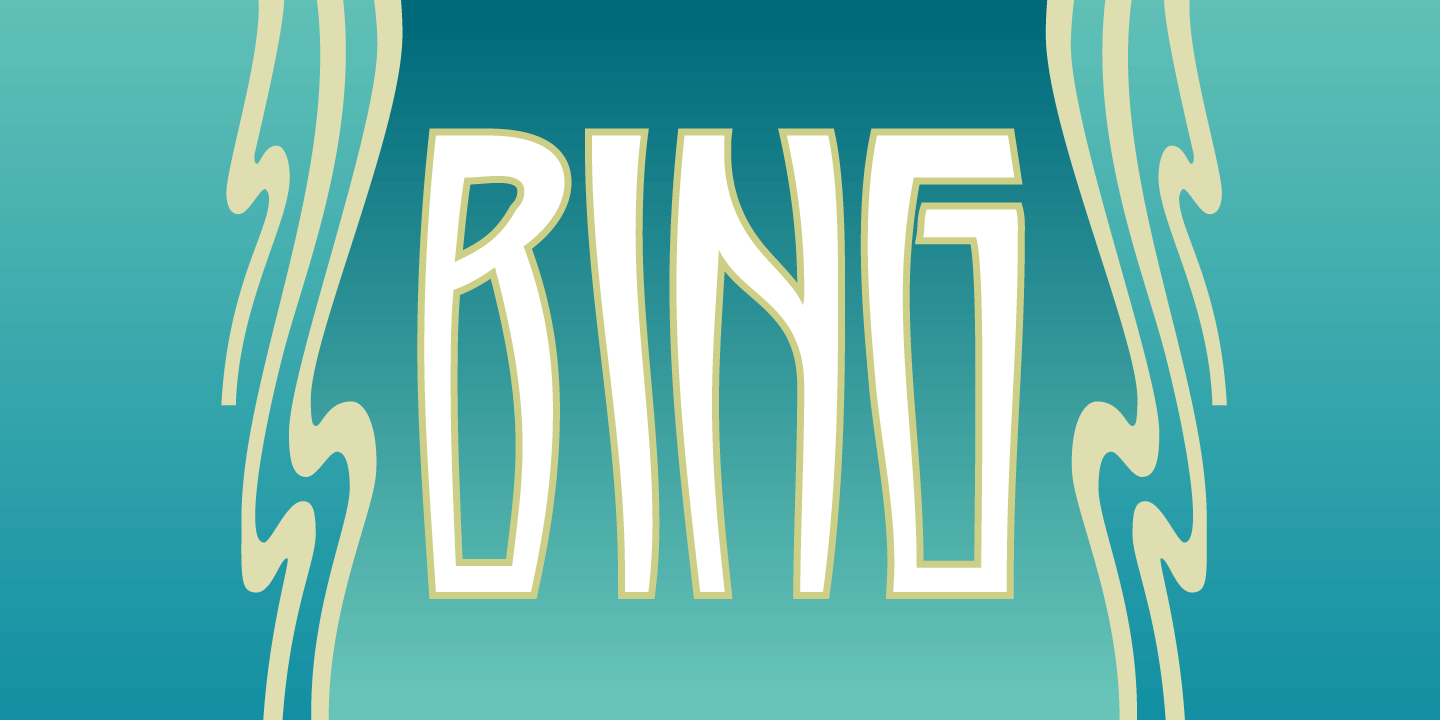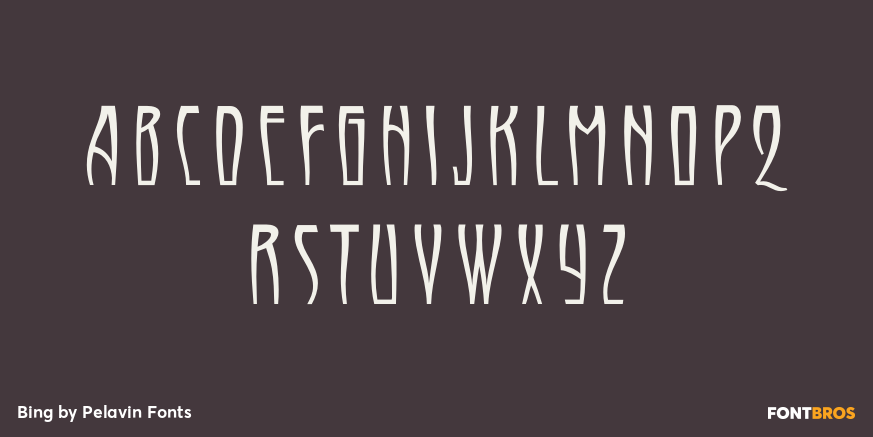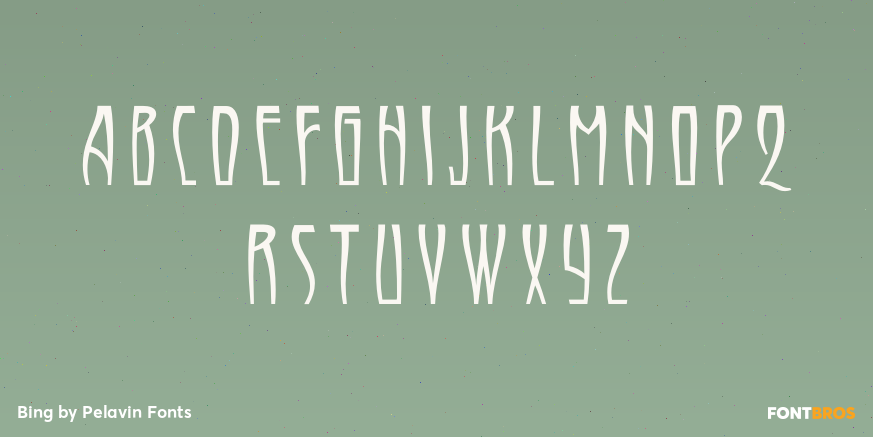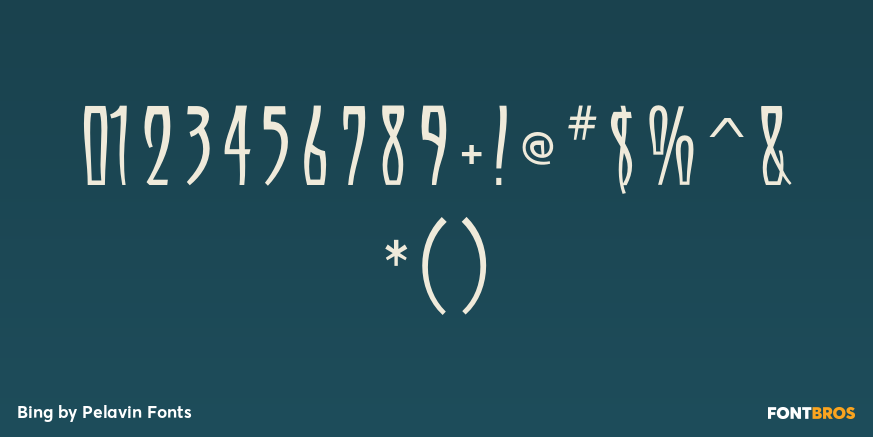
Bing
Buy NowThe sinuous, organic forms of Bing first came into being on a poster for a Smithsonian Institution exhibit on Siegfried Bing, a German art dealer in Paris who figured prominently in the development of Art Nouveau towards the end of the nineteenth century.
Inspired by the natural forms of Antonio Gaudi, and the Paris Metro stations of Hector Guimard, Bing can be used effectively in the modernist style of Art Nouveau and is equally at home in the 1960s psychedelic rejuvenation of that genre.